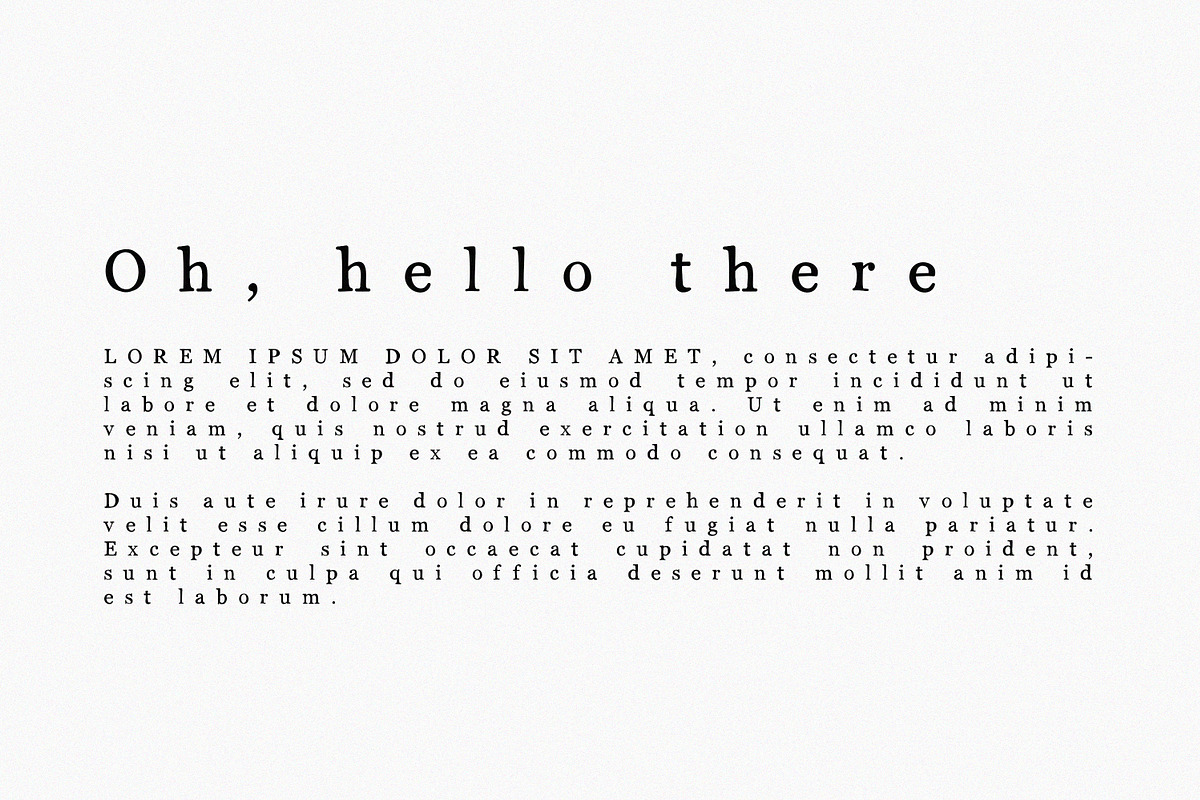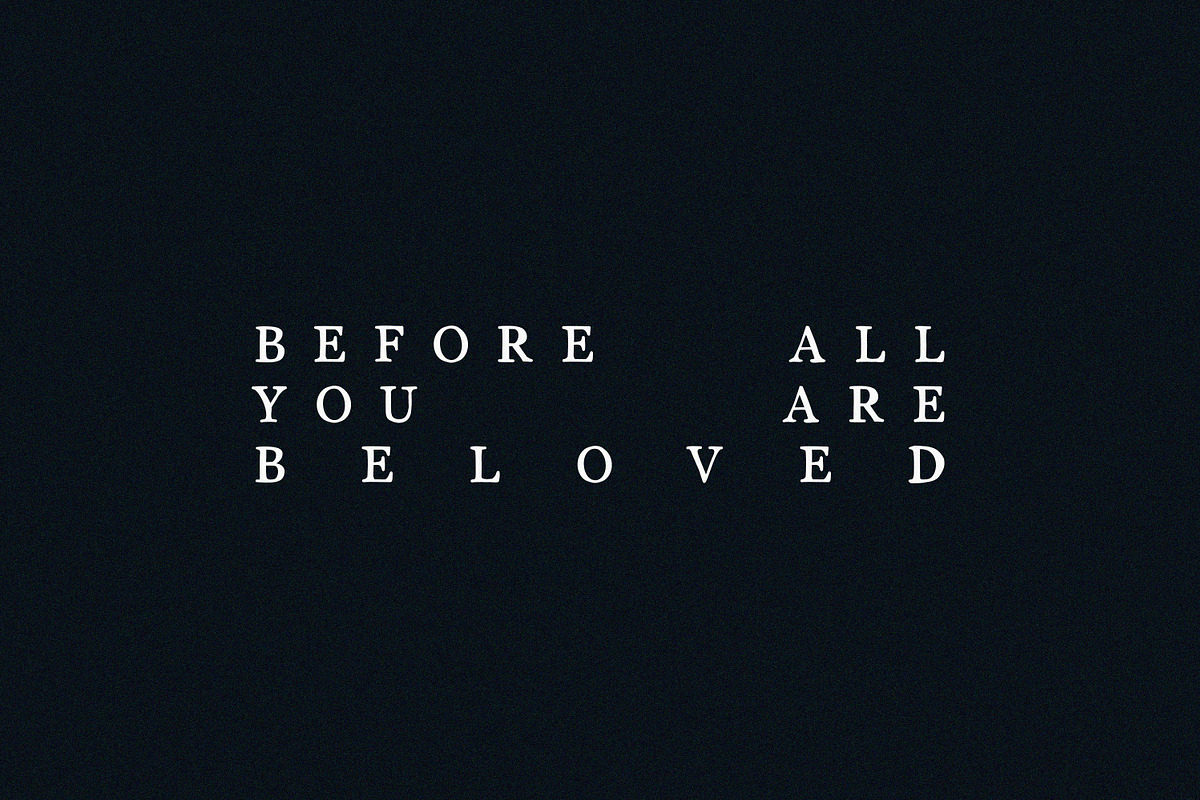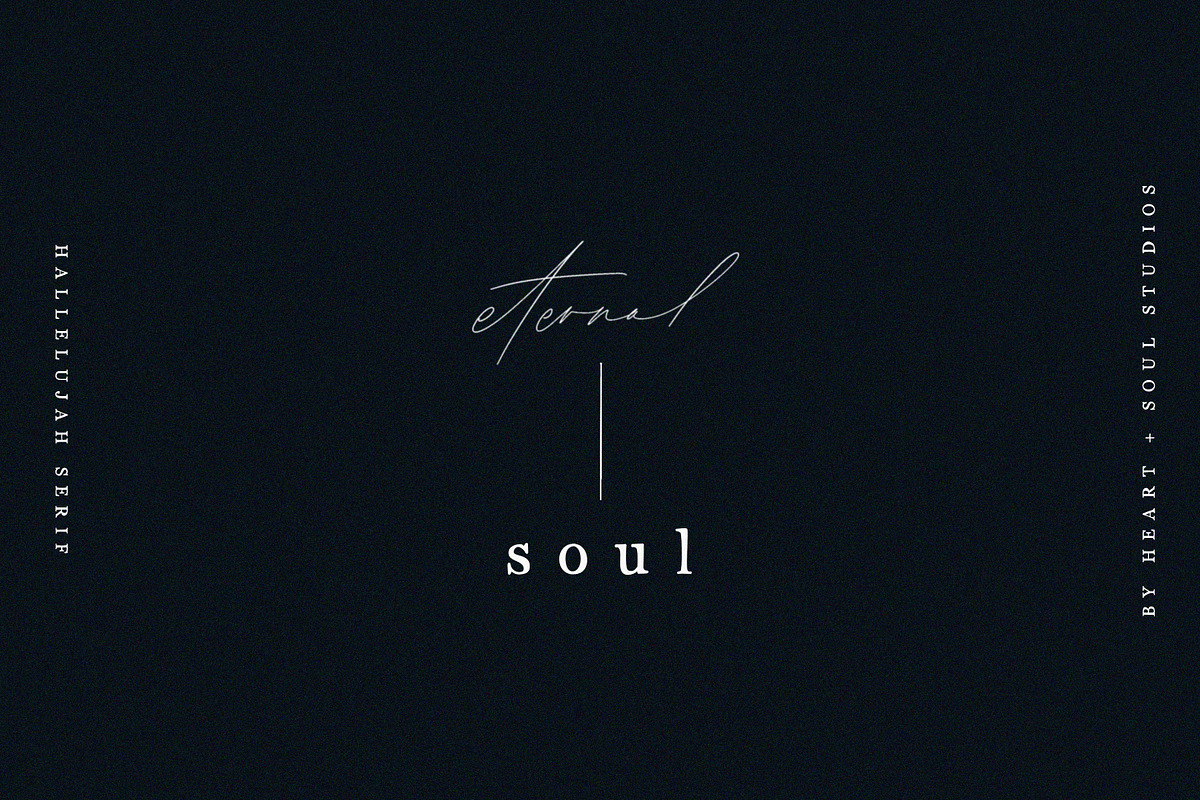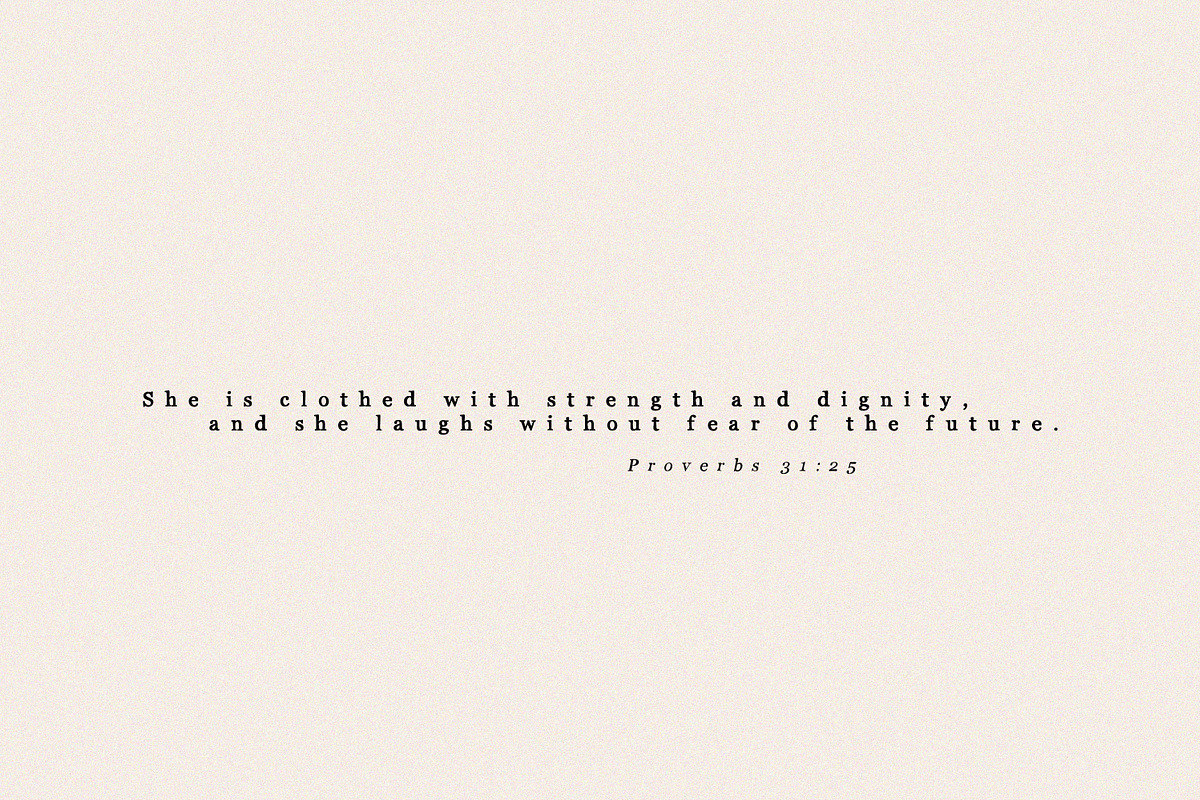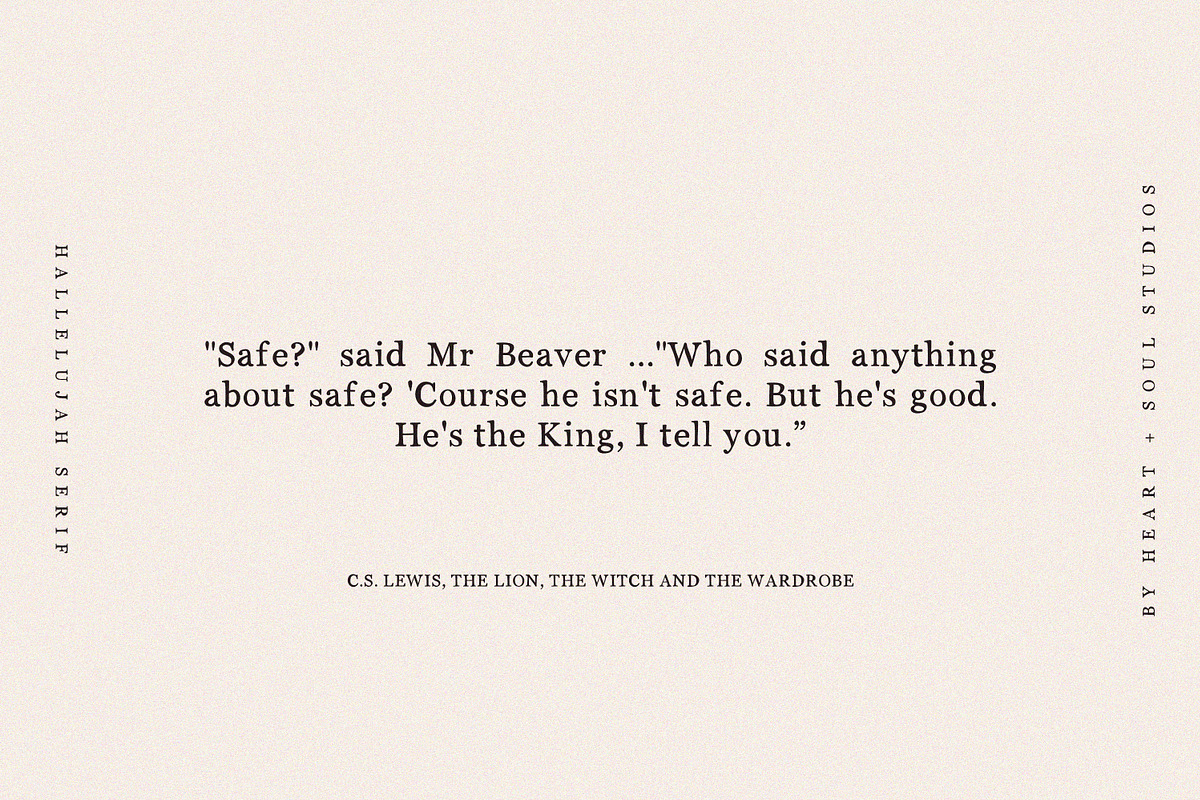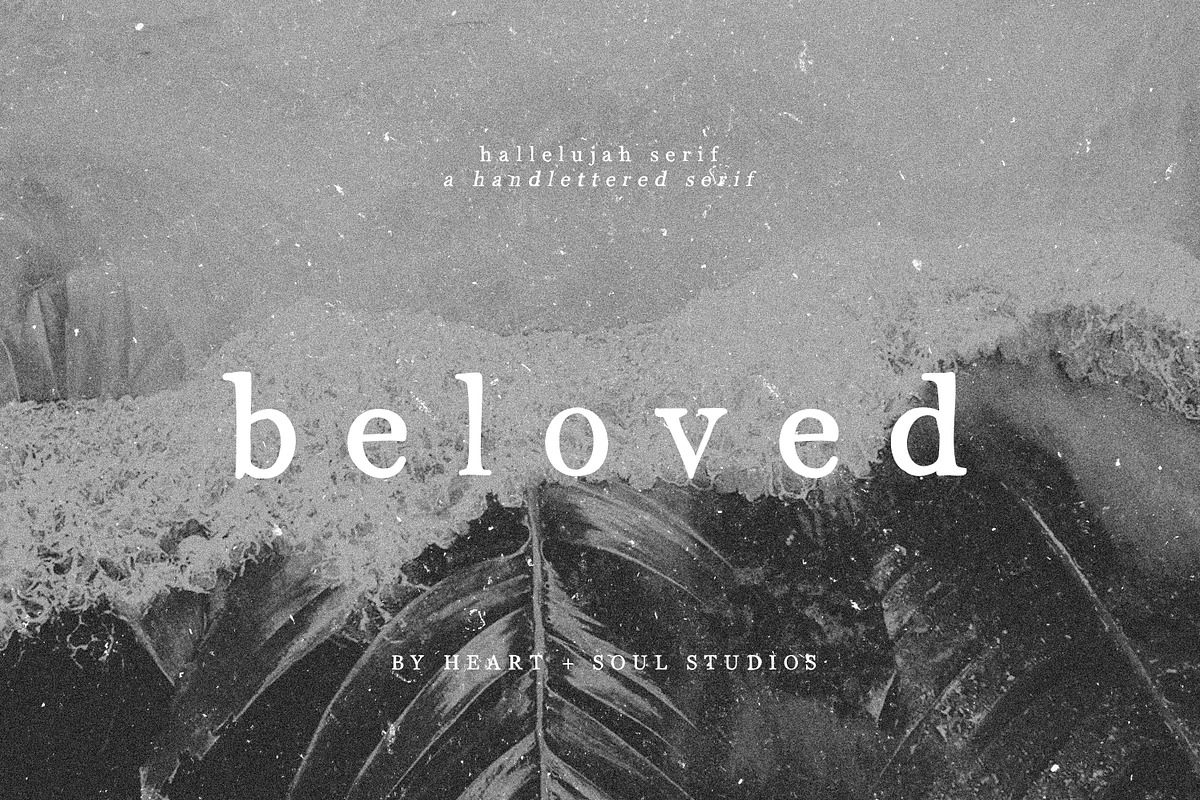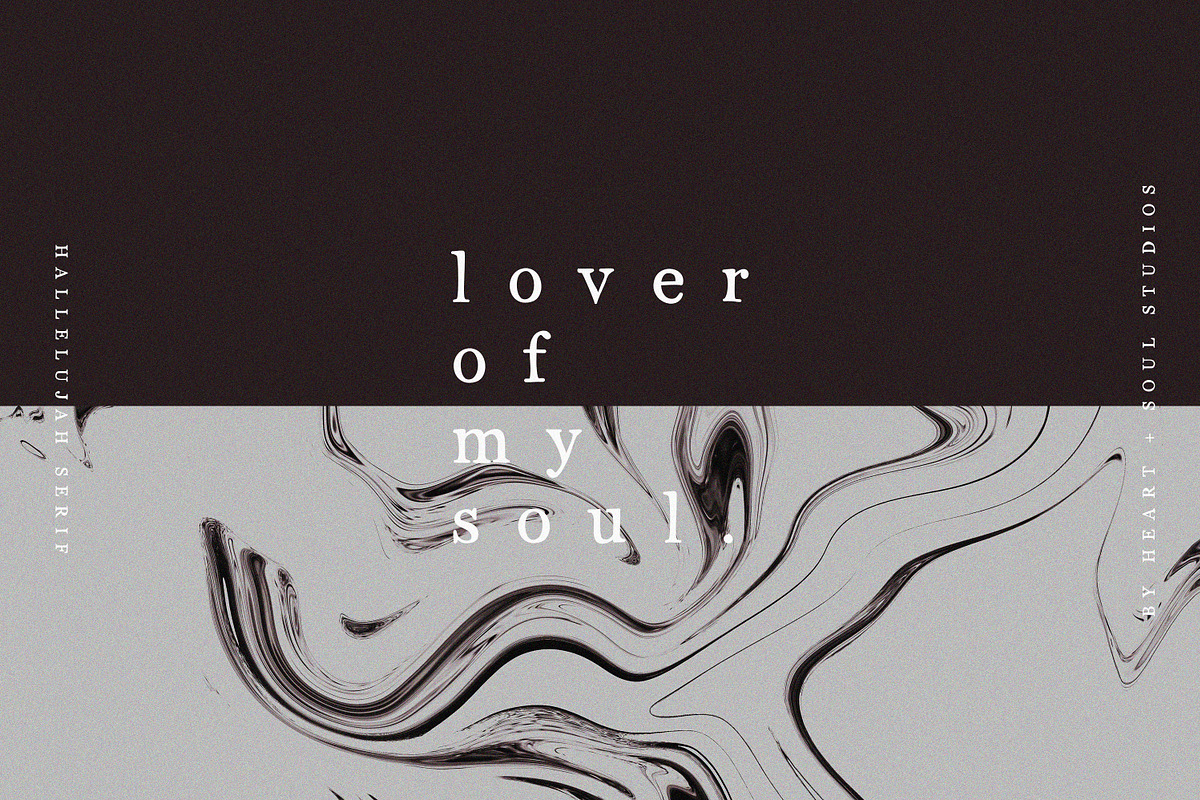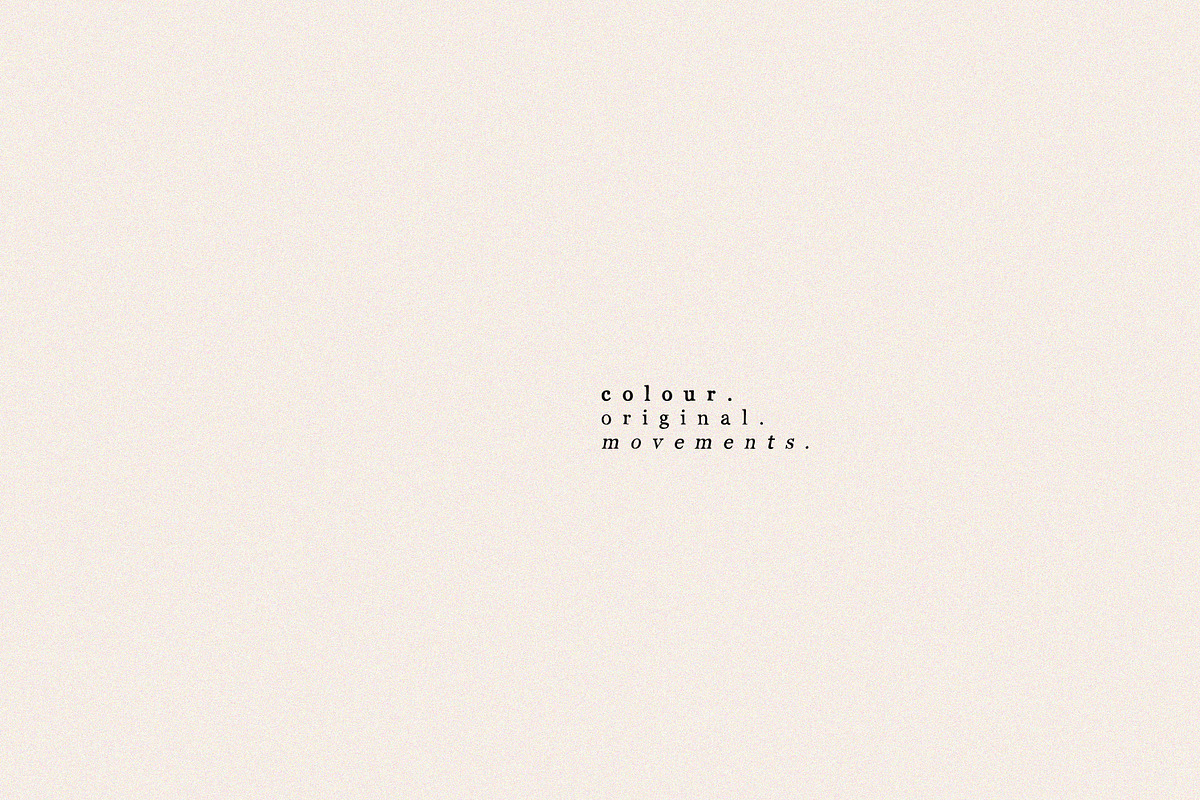
Hallelujah Serif | Handwritten Font
Inspired by the worshipping of One who is greater than us, by the awe of who He is and the wonder of the life He gives, Hallelujah Serif is an elegant handwritten serif font, with a clean, romantic feel.
Perfect for quotes, albums, logos, invitations, websites, branding and more!
For you, whoever you are; that you may be enthralled by the song of praise that is endlessly sung and know the One to whom it is rightfully sung. And for my Jesus. Always.